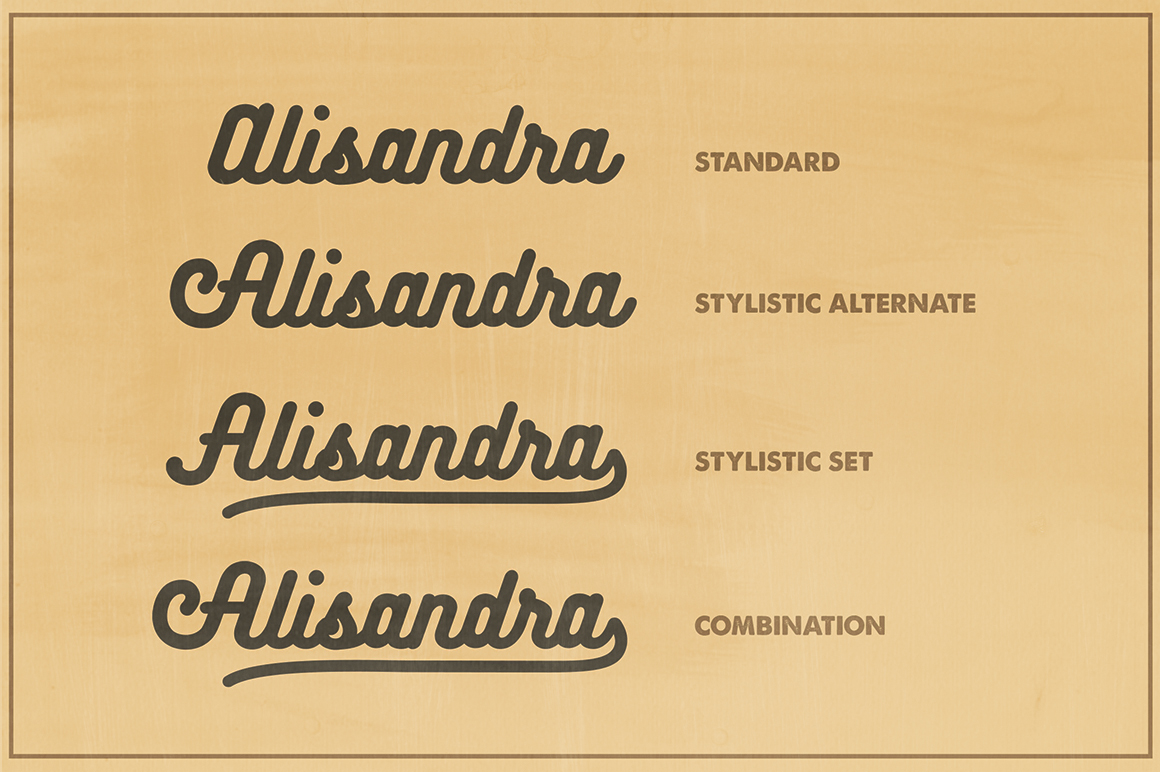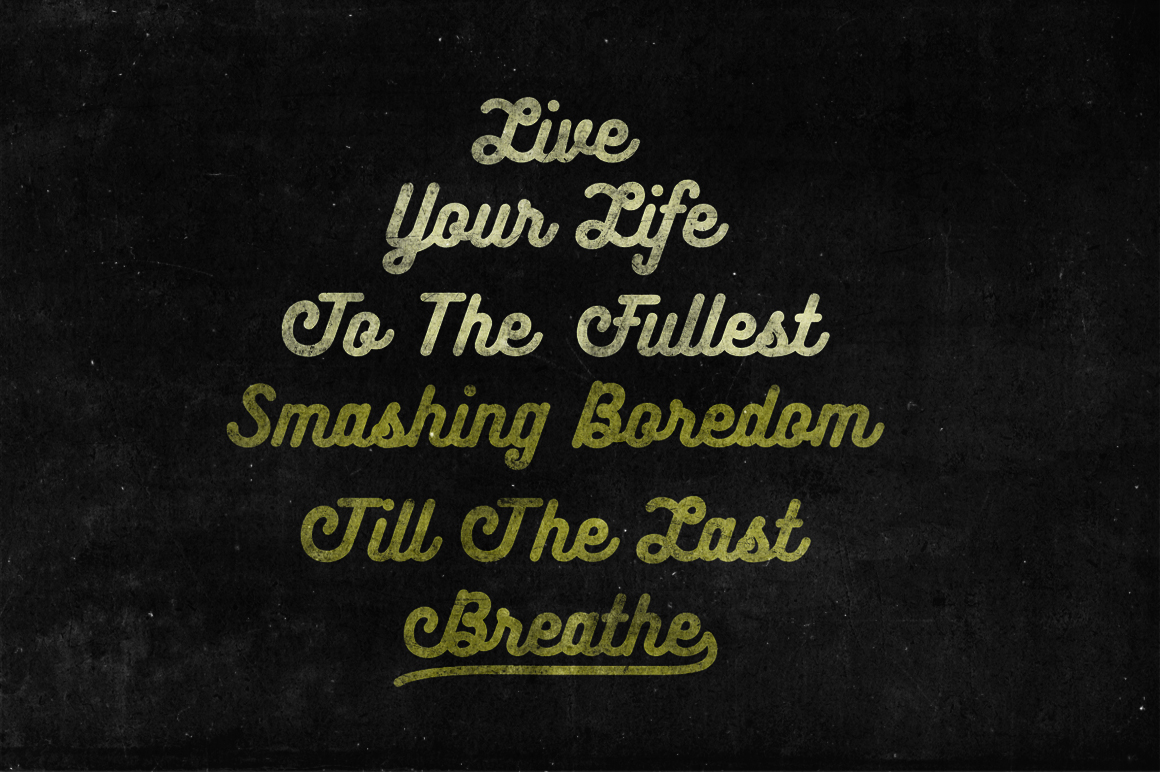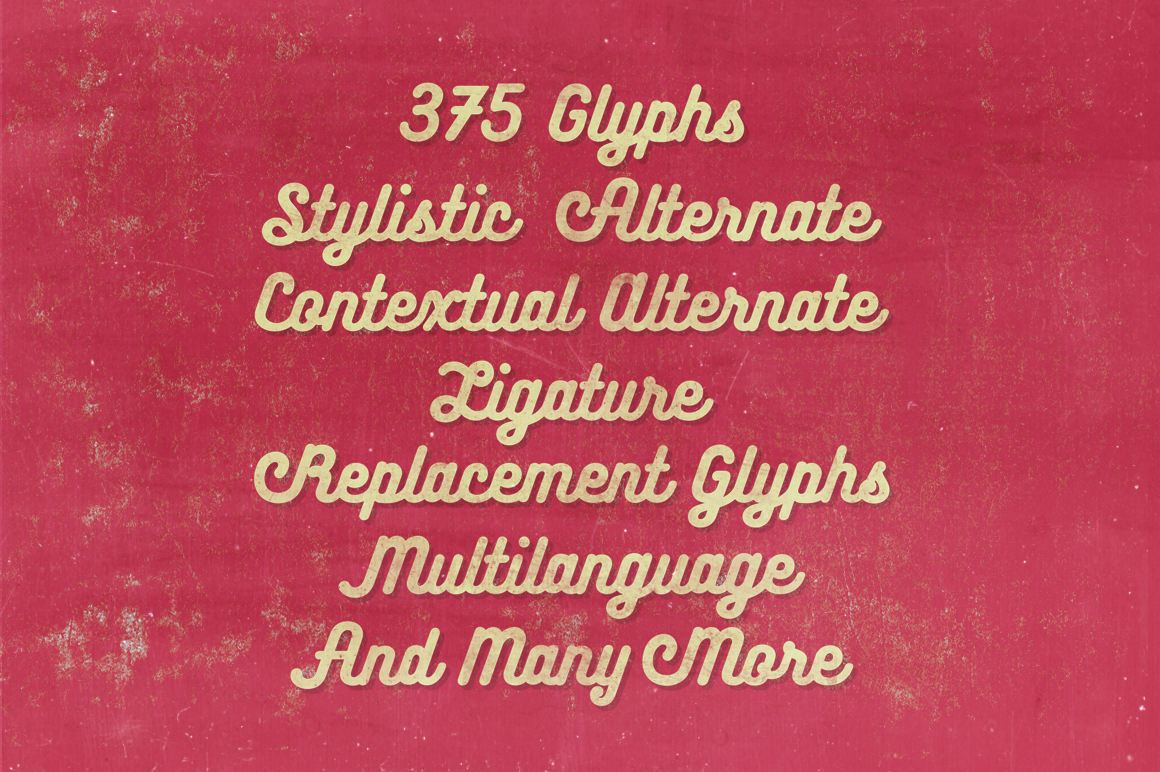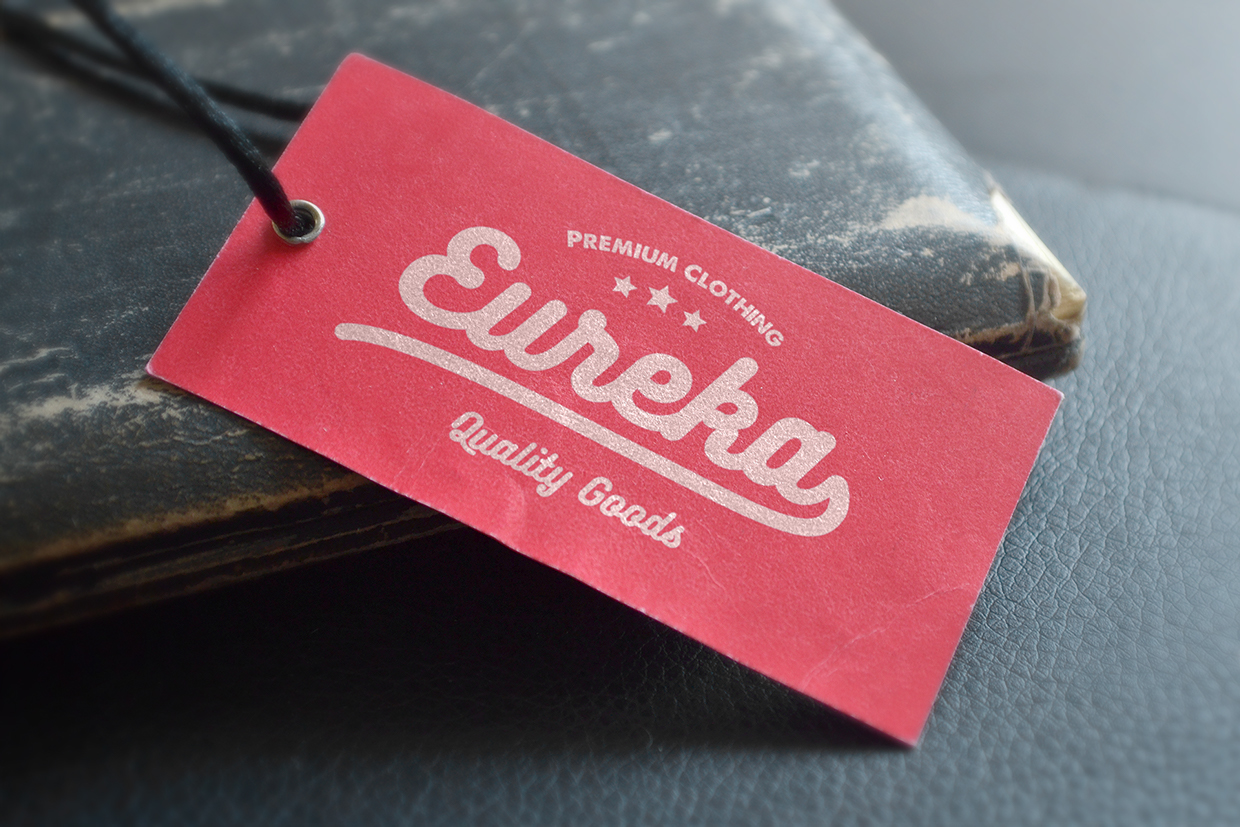
Bukhari – Free Script Font
This cool script custom font is from Mikrojihad. Bukhari Script is a bold monoline cursive font. Very usefull for various design project, for web or printing, such as a Logotype, Posters, Badges, Signage, Bussiness Card, T-shirt Design, or it can be anything. Bukhari Script contains almost 380 glyphs with several OpenType Features; Contextual Alternate, Stylistic Alternate, Standard Ligature & Fraction. The OpenType Feature can be used to create your own custom typography of your design. How to use OpenType? Download and enjoy ;)